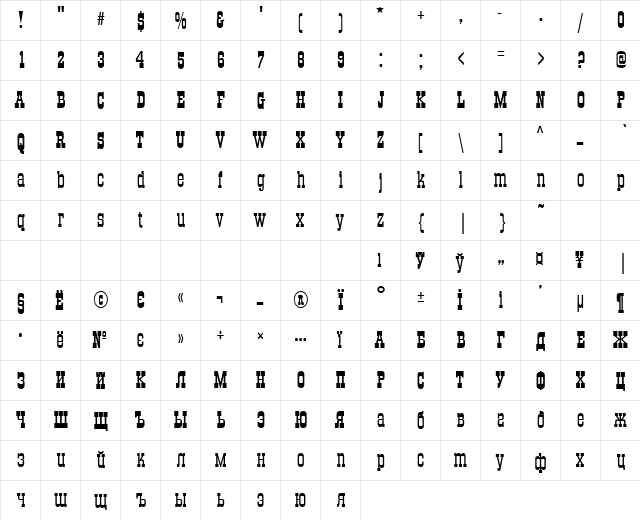
Beton Cyr Normal
Design Context for Beton Cyr Typeface
Beton Cyr takes a measured approach to typography — its balanced proportions and neutral character make it a reliable workhorse for both digital and print work.